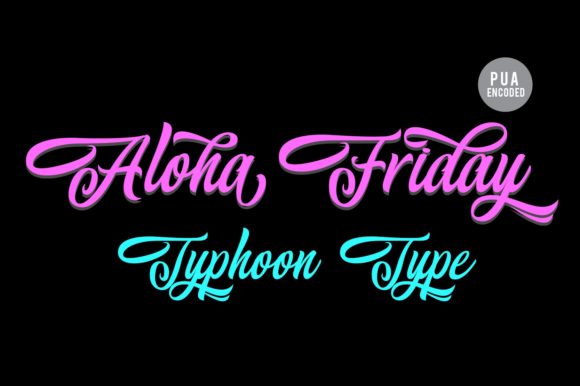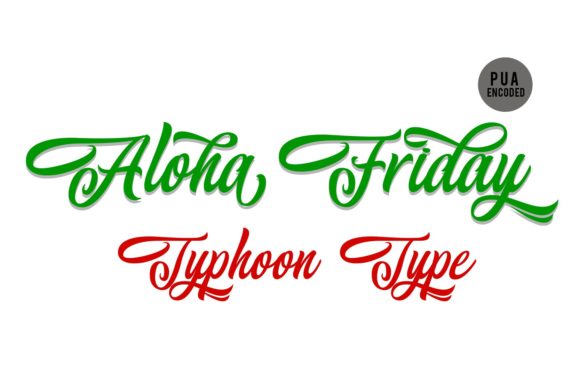
HomeScript FontsAloha Friday Font Script Fonts Aloha Friday Font FacebookXPinterestWhatsApp Aloha Friday Font Poster 2 Aloha Friday Font Poster 3 About Aloha Friday Font Aloha Friday is a playful and dynamic script with a unique style. Get inspired by its playful charm! DOWNLOAD NOW People also explored Snow Cold Font Biscuits And Gravy Stone Garden Font Roxxette Font Sour Pineapple Font Hello Flansher Font The Holly Merry Font Poker in October Font Malika Font 302 0 TagsAloha Friday Font Previous articleHinatta FontNext articleSugar Cookies Font LEAVE A REPLY Cancel reply Comment: Please enter your comment! Name:* Please enter your name here Email:* You have entered an incorrect email address! Please enter your email address here Website: Save my name, email, and website in this browser for the next time I comment. Personal Use Free Gupis Personal Use Free Read more about this font Green Farmhouse Personal Use Free Read more about this font Lightning Script Personal Use Free Read more about this font Krabuler Personal Use Free Read more about this font BLOG How to Install and Use Fonts on Windows, macOS, and Web Projects How to Install and Use Fonts on Windows, macOS, and Web Projects Fonts are a crucial part of design and branding. Whether you’re designing a... Best Fonts for T-Shirt Design – Top 2025 Picks The 10 Best Handwriting Fonts to Add Personality to Your Designs Top 10 Handwritten Fonts That Elevate Your Designs